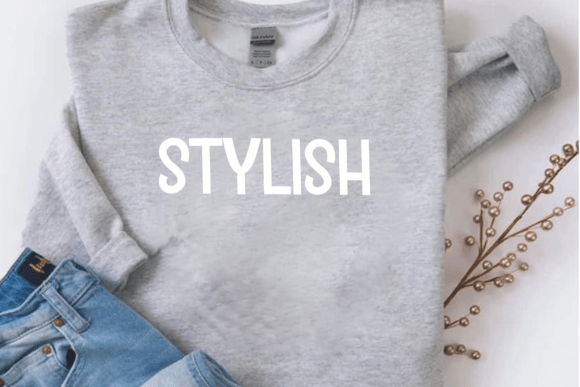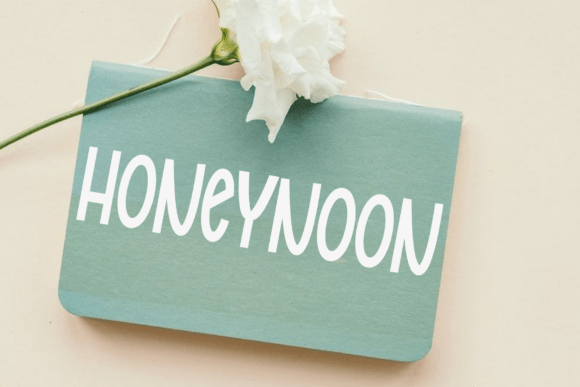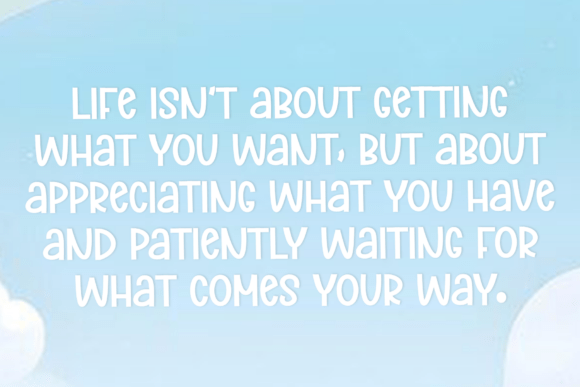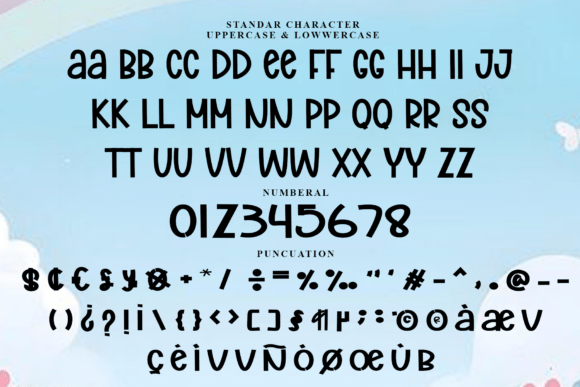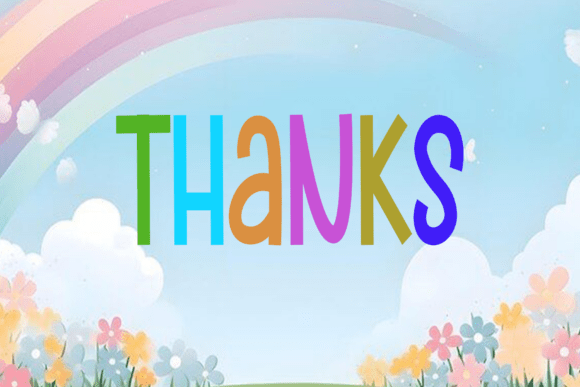
Introduction to Kinder Rainbow Font
Kinder Rainbow is a stylish handwritten font that blends organic charm with a strong typographic presence.
It features thick, solid strokes with a distinct “bouncy” rhythm that gives it a friendly and approachable character Part of the “Unique and Professional” collection, its well-balanced proportions ensure it remains impactful even in busy designs.
Key Features of Kinder Rainbow Font
Why Choose Kinder Rainbow Font?